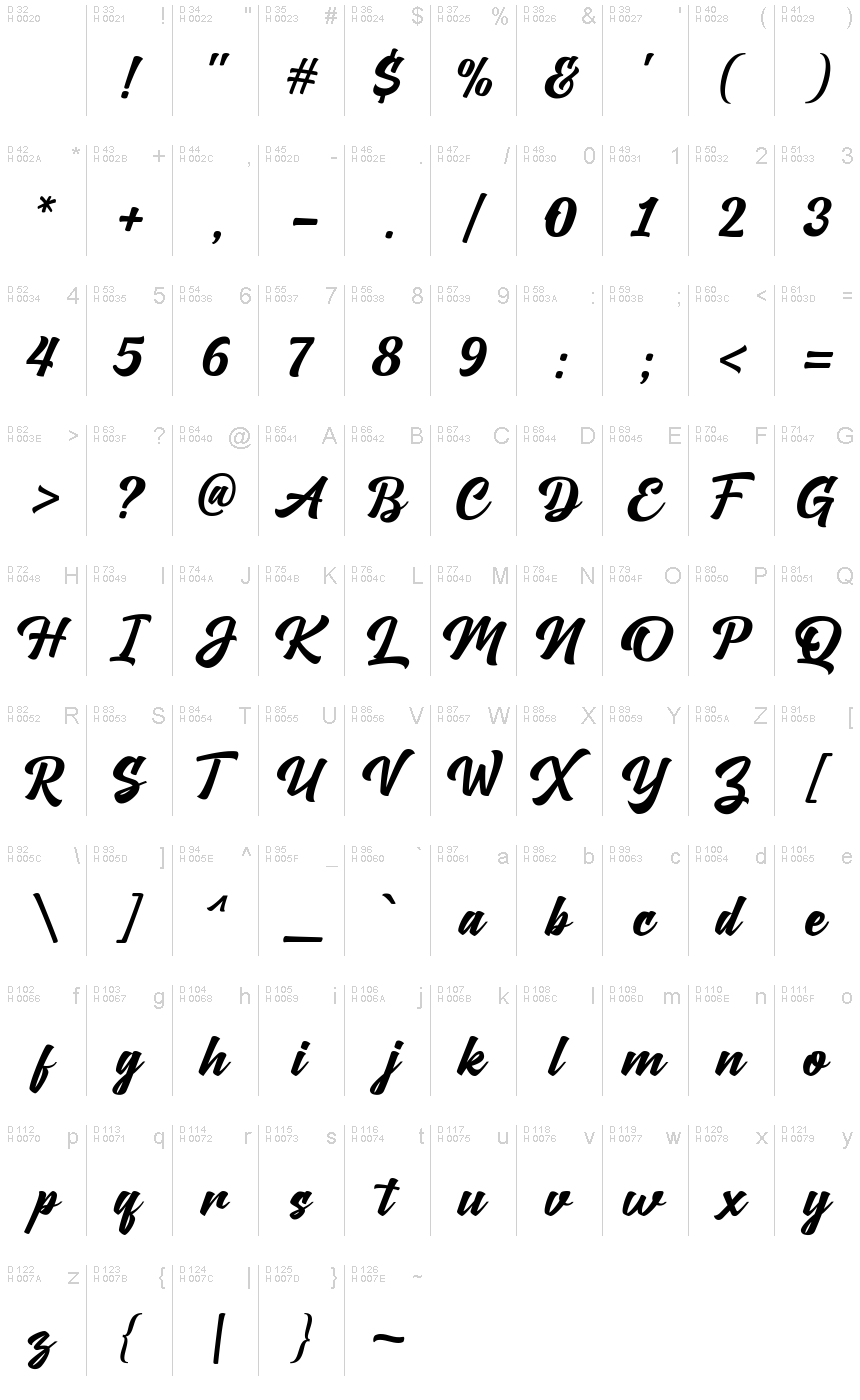
Versatile Letters
Versatile Letters, a creation of Java Pep, sweeps across the page with the fluidity and grace of a seasoned artist's brush. Each stroke encapsulates an organic energy that breathes life into words, marrying casual elegance with dynamic motion. This font dances between bold assertiveness and whimsical playfulness, making it a captivating choice for those looking to inject personality into their projects.
Perfect for creative branding, evocative advertising campaigns, or any medium that desires a touch of human warmth, Versatile Letters brings an authentic brush style to the table. Its sweeping curves and natural variation in stroke thickness evoke an intimate handcrafted feel, ideal for designs that aim to stand out with flair and panache.